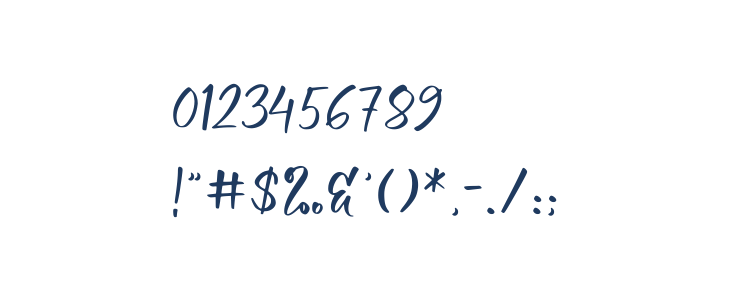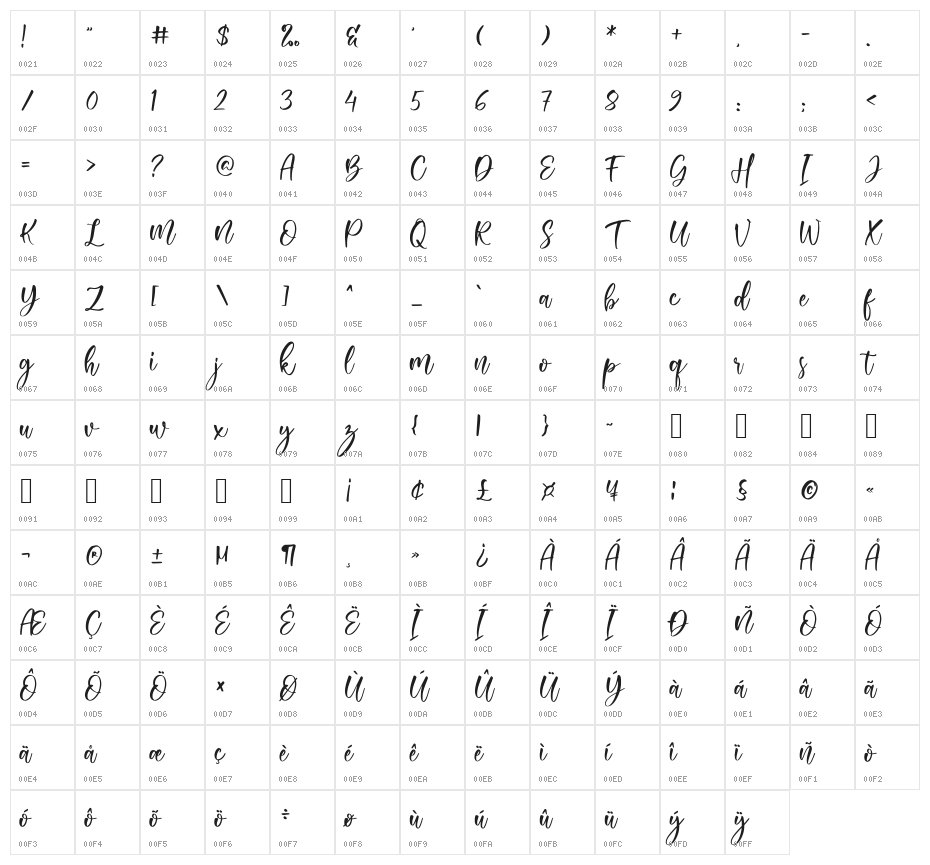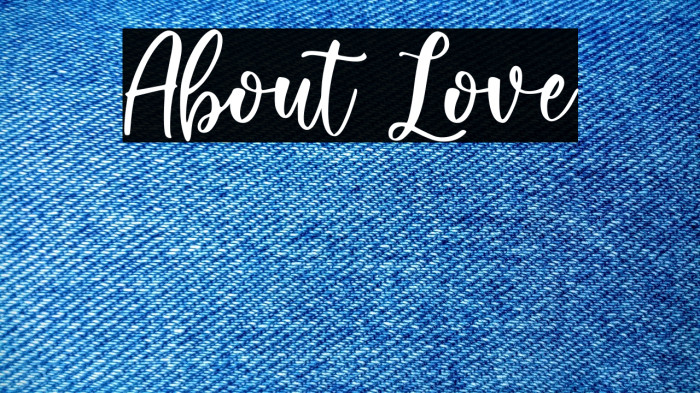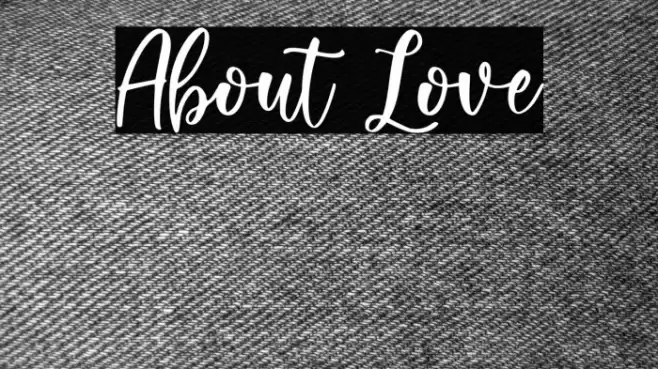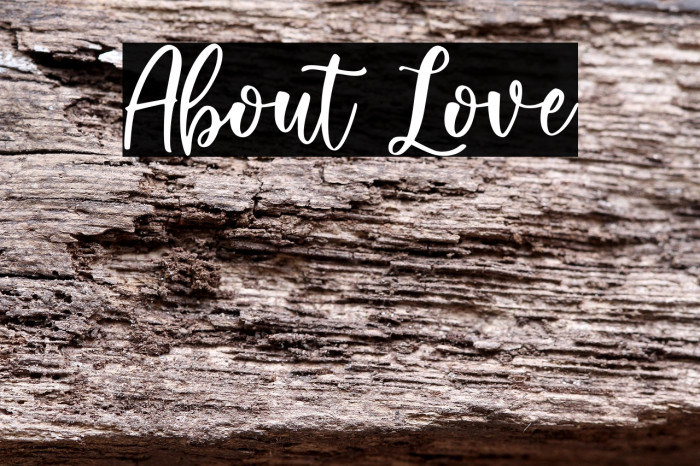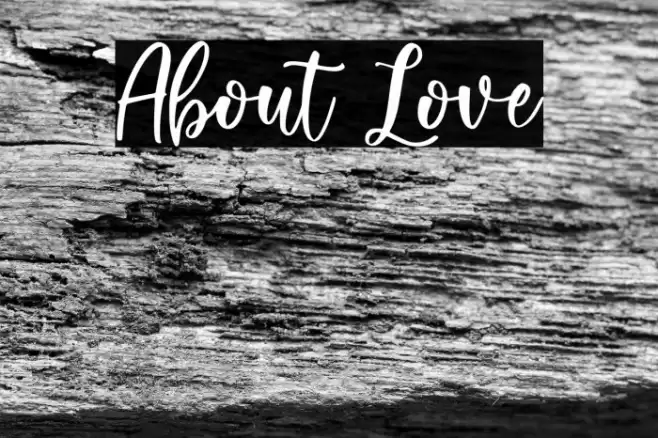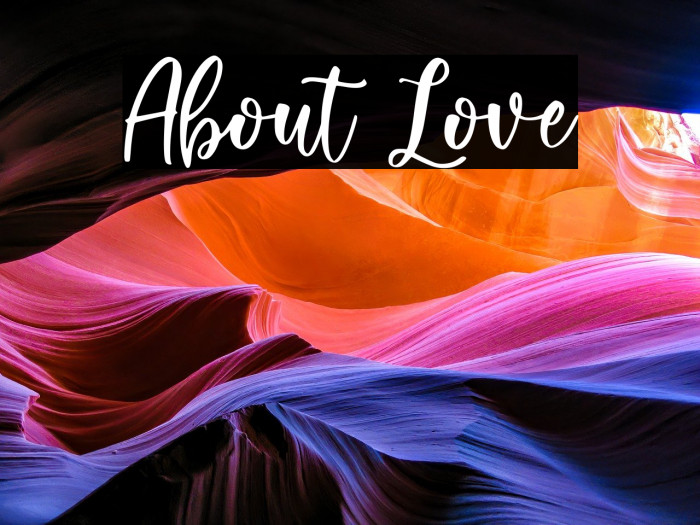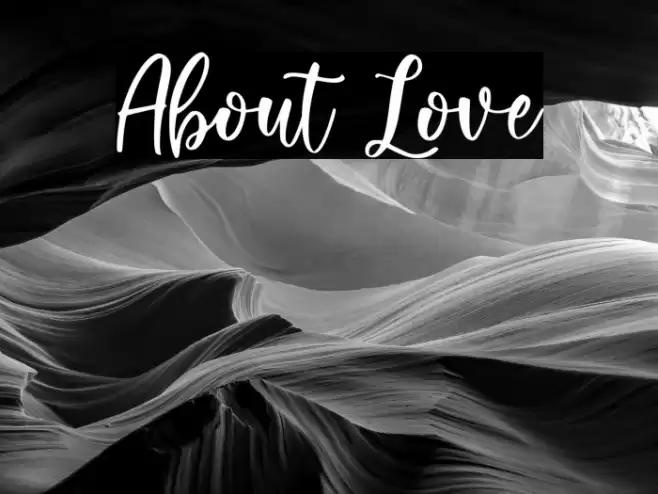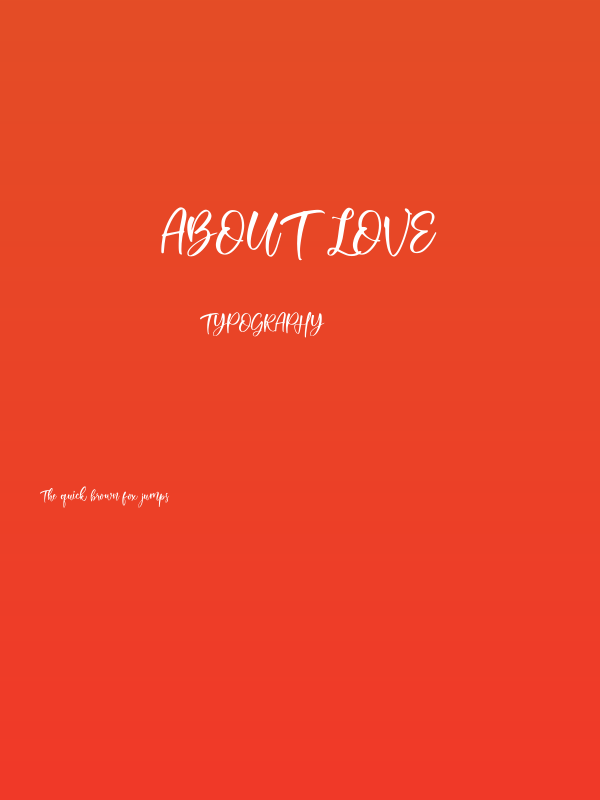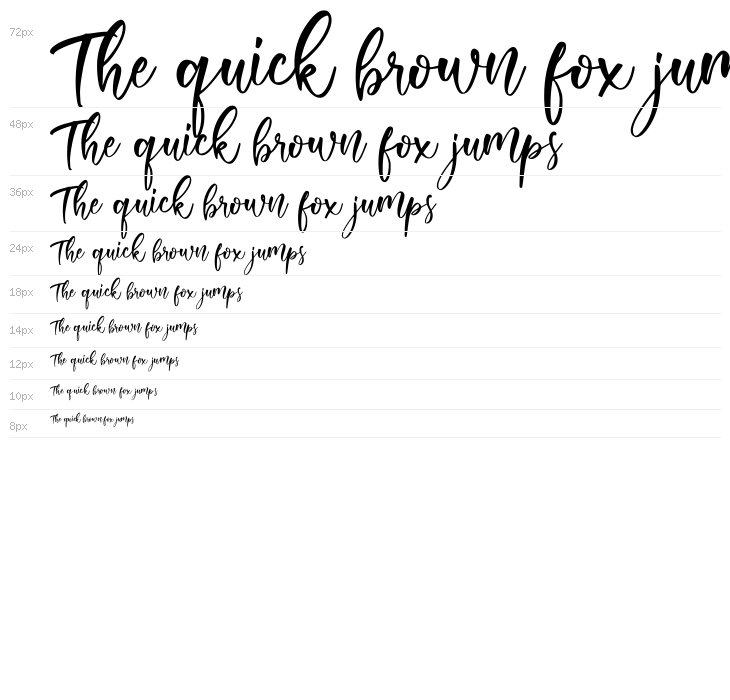
About Love Font
About Love Description
This font features a flowing, cursive style with a handwritten appearance. The letters are connected, creating a sense of continuity and elegance. The uppercase letters are bold and expressive, while the lowercase letters maintain a consistent flow. The numbers and special characters complement the overall style, adding a playful yet sophisticated touch. The strokes vary in thickness, providing a dynamic contrast that enhances readability and visual interest. This font is ideal for projects that require a personal, artistic touch.
Use CaseLogos, Invitations, Social Media Graphics
Proposed ProjectsPerfect for wedding invitations, greeting cards, branding, and social media graphics.